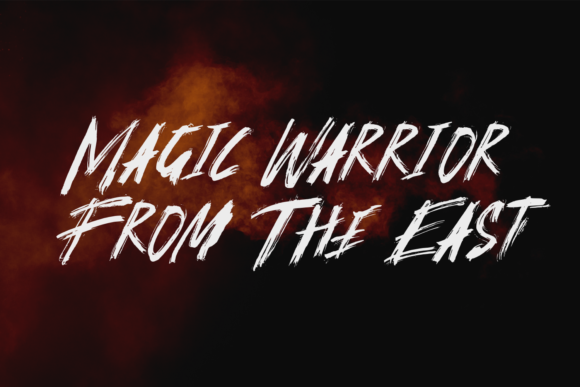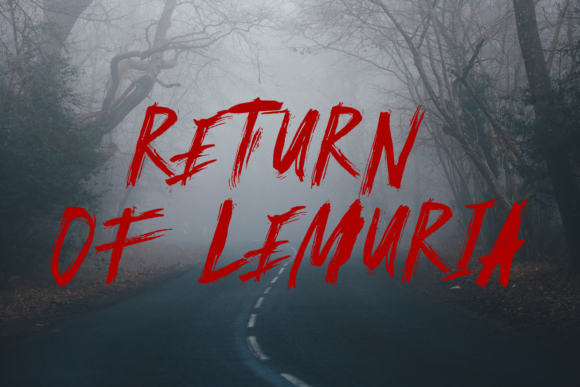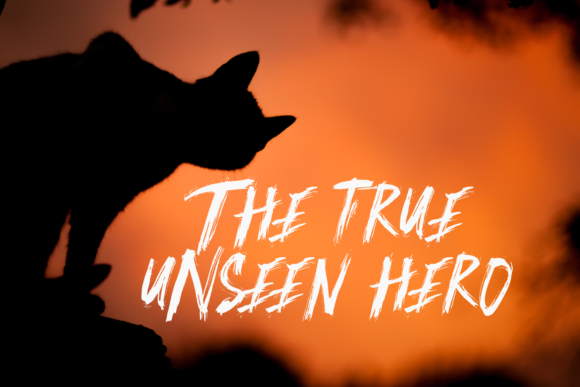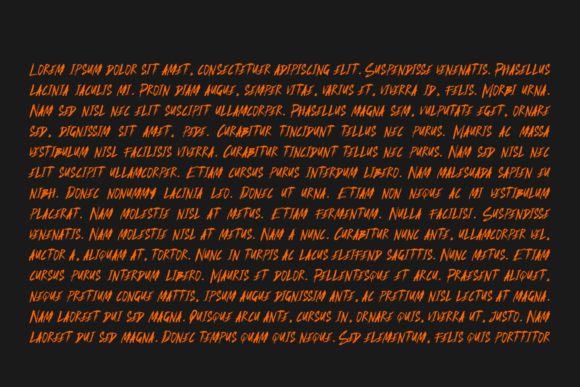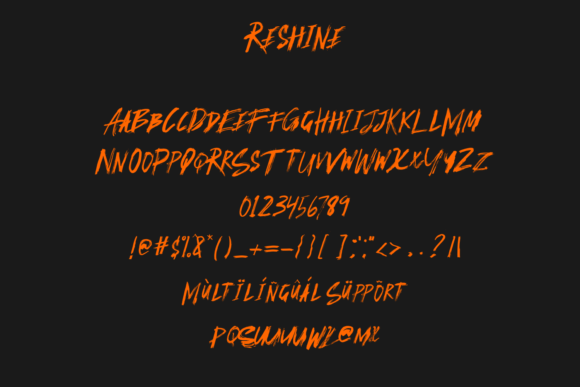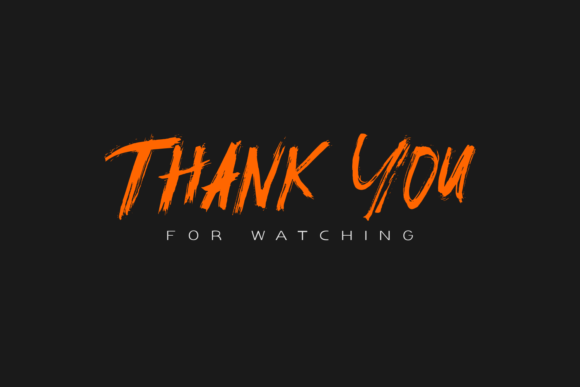
Reshine Font
About Reshine Font
The versatility of this font model makes it a perfect choice for a wide array of design applications, ensuring its suitability for various creative projects. Whether you are engaged in product branding, logo creation, book title design, or developing visuals for t-shirts, sportswear, logos, advertisements, and clothing, this font model stands out as a dynamic and adaptable typeface.
In the realm of product branding, the font excels by providing a distinctive and memorable visual identity. Its carefully crafted design elements contribute to creating a unique brand image that resonates with your target audience, making it a valuable asset for establishing a strong and recognizable brand presence.
Logo branding benefits from the font’s adaptability, allowing for the creation of logos that are not only visually striking but also reflective of the brand’s essence. The font model’s diverse features make it suitable for crafting logos that convey a range of emotions and styles, ensuring flexibility in brand representation.
For book titles, the font model offers a balanced and visually appealing option. Its clear and captivating characters contribute to the creation of book covers and titles that are both aesthetically pleasing and readable, enhancing the overall visual impact of literary works.
When applied to t-shirts, sportswear, and clothing designs, the font model provides a modern and stylish typographic element. Its PUA encoding enhances creative possibilities, allowing seamless access to an array of amazing glyphs and ligatures. This feature empowers designers to experiment with different letterforms, creating visually appealing and personalized designs.
In advertisements, the font model’s dynamic and adaptable nature ensures that your messaging is delivered with impact. Its ability to complement various design elements makes it suitable for creating advertisements that capture attention and convey a compelling visual narrative.
The font model’s PUA encoding further enhances its usability, granting easy access to an assortment of amazing glyphs and ligatures. This feature facilitates a streamlined design process, allowing designers to incorporate unique and creative typographic elements effortlessly.
In summary, this font model is more than just a typeface; it’s a versatile and powerful tool for designers across a spectrum of creative projects. Whether used for product branding, logo design, book titles, apparel, or advertisements, its adaptability and PUA encoding make it a valuable asset for crafting visually compelling and distinctive designs.